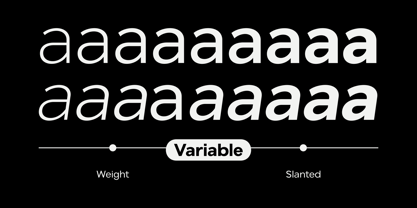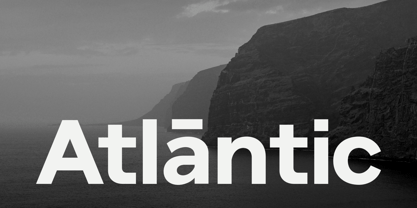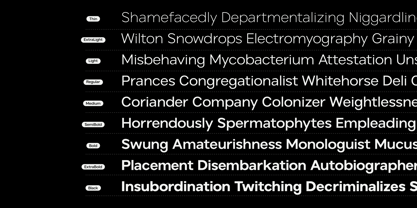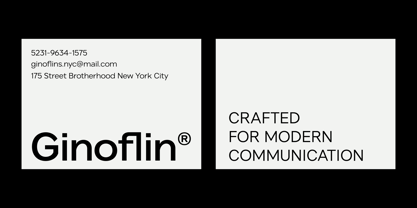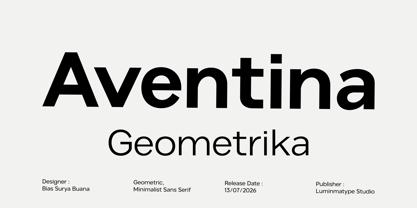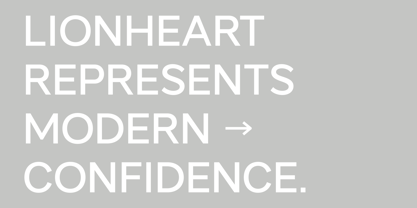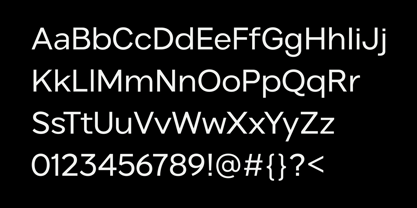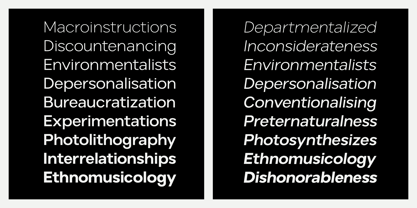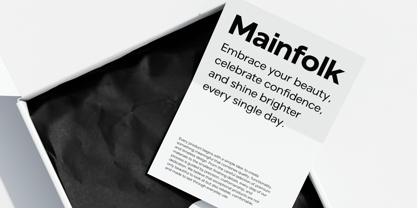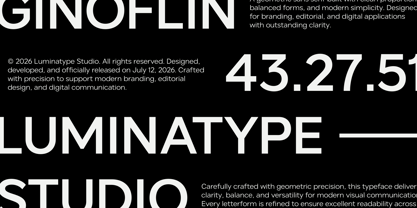
Aventina Geometrika
por Luminatype Studio
La familia tipográfica Aventina Geometrika fue diseñada por Bias Surya Buana y publicada por Luminatype Studio. Aventina Geometrika contiene 18 estilos y opciones de paquete familiar. Más información sobre esta familia
Aventina Geometrika is a contemporary geometric sans serif typeface developed by Luminatype Studio. It is rooted in geometric construction and refined through optical correction, striking a balance between precision and a natural reading rhythm. This versatile font family is designed to perform consistently across a wide range of applications, including visual identities, editorial systems, packaging, signage, and digital interfaces. Rather than relying solely on strict geometry, Aventina Geometrika incorporates subtle refinements that enhance legibility and create a more approachable typographic texture. Its balanced proportions, carefully considered spacing, and consistent stroke relationships provide the typeface with a confident yet understated presence. Aventina Geometrika is crafted for designers who prioritize clarity and versatility, offering a reliable foundation for contemporary communication. Whether utilized in expressive headlines or extended text, it delivers a timeless voice that remains functional, distinctive, and enduring across both print and digital mediums.
Diseñadores: Bias Surya Buana
Fundición: Luminatype Studio